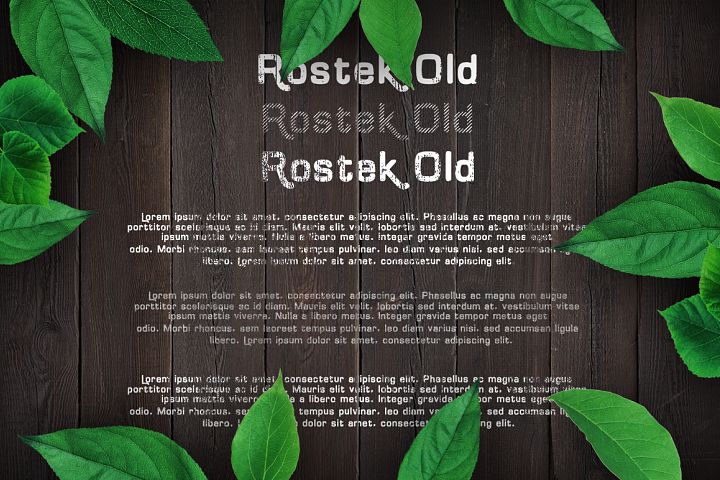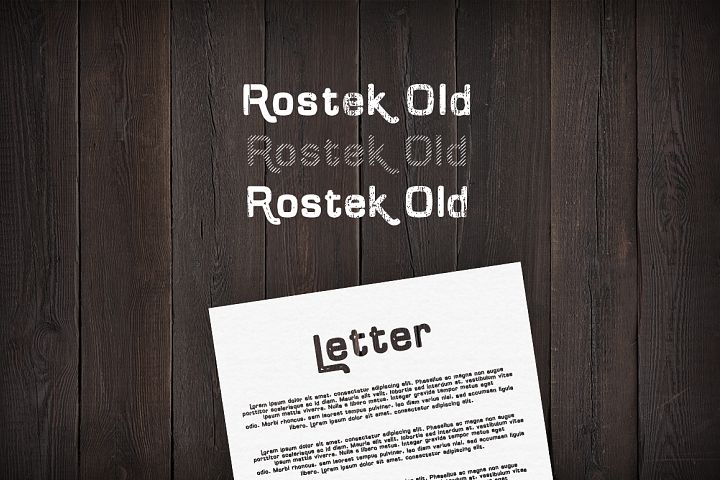
Introduction to Rostek Old Font
As designers, we’ve all been there – stuck in a creative rut, struggling to find the perfect font to elevate our latest project. The cursor blinks, and our minds go blank. But what if I told you there’s a secret to unlocking that vintage charm in your design, without sacrificing high quality and versatility?
Enter the Rostek Old Font, a stunning, handmade typeface that’s about to become your new design BFF. With its unique, distressed texture and classic flair, this font is the perfect addition to any creative project, from branding to editorial design. Whether you’re a seasoned pro or just starting out, the Rostek Old Font is a valuable resource that’s sure to take your designs to the next level.
What sets Rostek Old Font apart from other design resources is its sleek, modern aesthetic, paired with a transparent background that makes it easy to layer and manipulate. And the best part? It’s available for free download, making it an absolute must-have for any designer looking to add a touch of sophistication to their work.
Key Features of Rostek Old Font
- Unique Vintage Design: Rostek Old Font is a high-quality design resource that adds a touch of nostalgia to any creative project.
- Transparent Background: This font comes with a transparent background, making it easy to use in various design applications.
- Perfect for Creative Projects: This font is ideal for use in creative projects, such as branding, advertising, and editorial design.
Honest Review: Rostek Old Font
I recently stumbled upon the Rostek Old Font while searching for design resources to enhance a creative project. Initially, I was drawn to its unique, distressed aesthetic that would add a touch of character to my design. Upon closer inspection, I was pleased to find that it’s available for free download, making it an excellent choice for those on a budget.
Here are some aspects that work well:
- High-quality design that’s perfect for vintage-inspired projects
- Comes with a transparent background, allowing for easy customization
- ⚠️ Limited character set may not be suitable for extended text-based projects
- ⚠️ May not be ideal for modern or sleek designs, as it’s quite distressed
Overall, I’m impressed with the Rostek Old Font’s unique design and free availability. It’s a great addition to any designer’s toolkit, especially for creative projects that require a vintage or distressed look. While it may have some limitations, it’s definitely worth considering for the right project.
How to Use Rostek Old Font
Rostek Old Font is a unique and high-quality design resource perfect for creative projects that require a vintage touch. With its transparent background and classic style, it’s ideal for adding a touch of nostalgia to your designs.
Getting the Most Out of Rostek Old Font
To get the most out of Rostek Old Font, experiment with different font sizes, colors, and combinations. You can also use it in conjunction with other design elements to create a unique and eye-catching design.
Rostek Old Font is perfect for:
- Creating vintage-inspired advertisements
- Designing retro-themed websites and social media graphics
- Adding a touch of nostalgia to wedding invitations and other event materials
Great Vibes Font is a high-quality, artistic script font that can be used for creative projects. It features a beautiful, handwritten feel and is ideal for designs that require a touch of elegance. Great Vibes Font is a free download and can be used on a transparent background, making it perfect for web design.
Compared to Rostek Old Font, Great Vibes Font has a more refined and sophisticated look, making it suitable for a wider range of design projects. It’s a great alternative for designers who want to add a touch of class to their creative project.